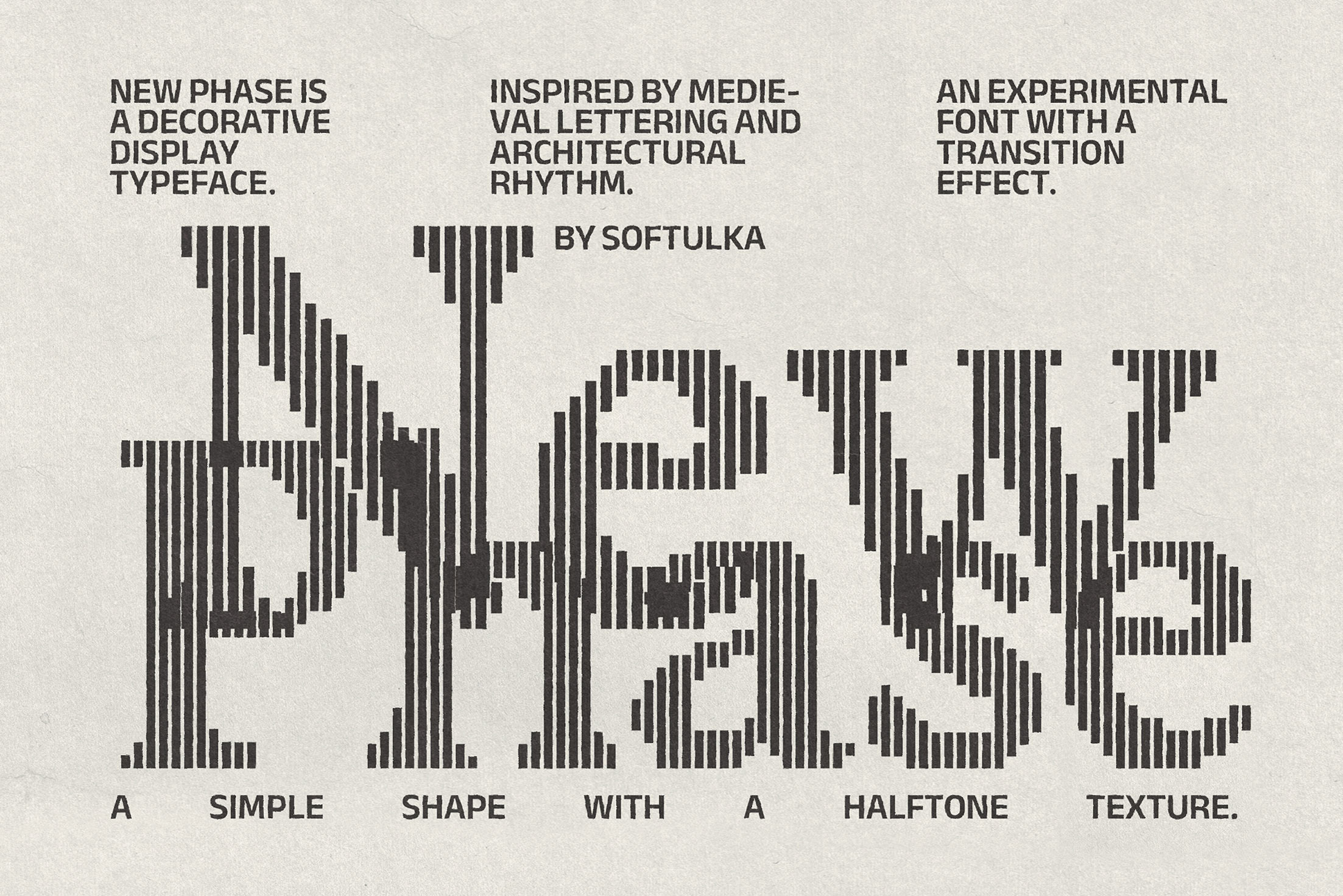
New Phase Typeface
New Phase is an experimental display serif typeface inspired by medieval inscriptions, architectural structures, and optical rhythm. Constructed from repeating vertical stripes of varying heights, it merges the elegance of historical letterforms with a contemporary transitional aesthetic. Balancing architectural precision, visual movement, and expressive form, New Phase creates striking typographic compositions for branding, posters, editorial design, packaging, and other creative applications.